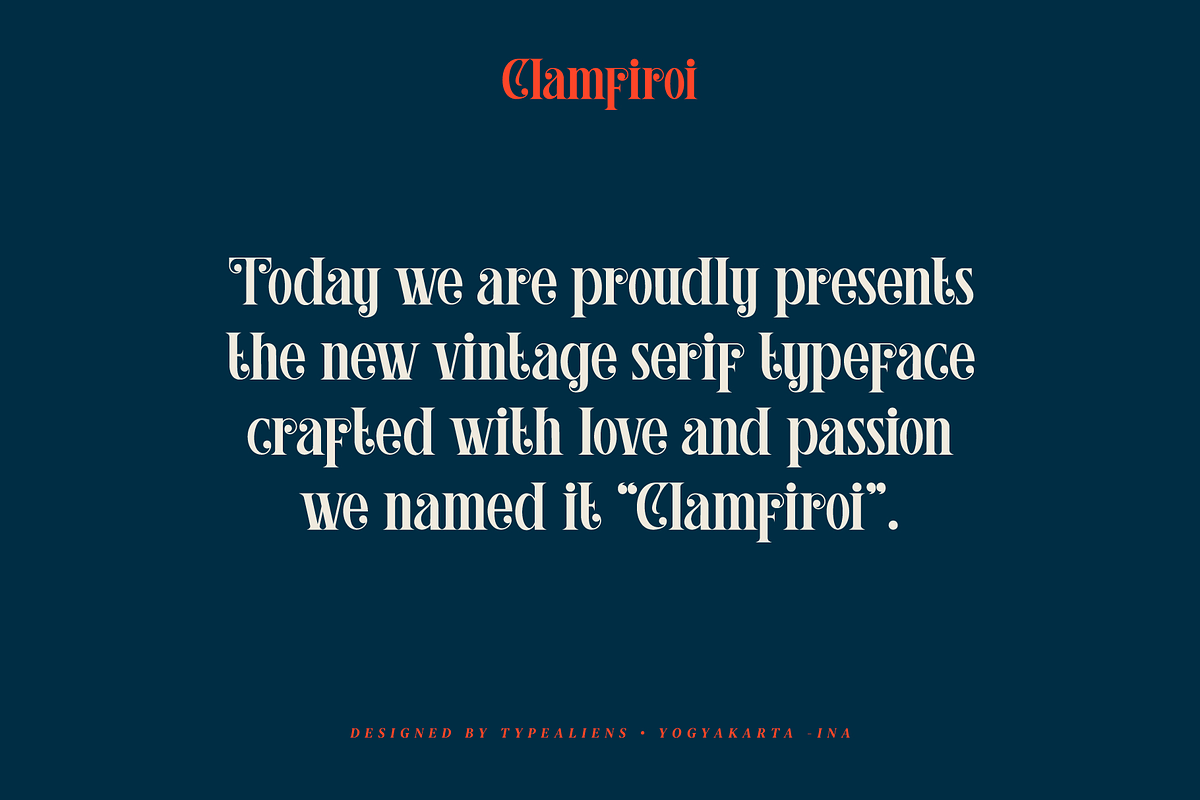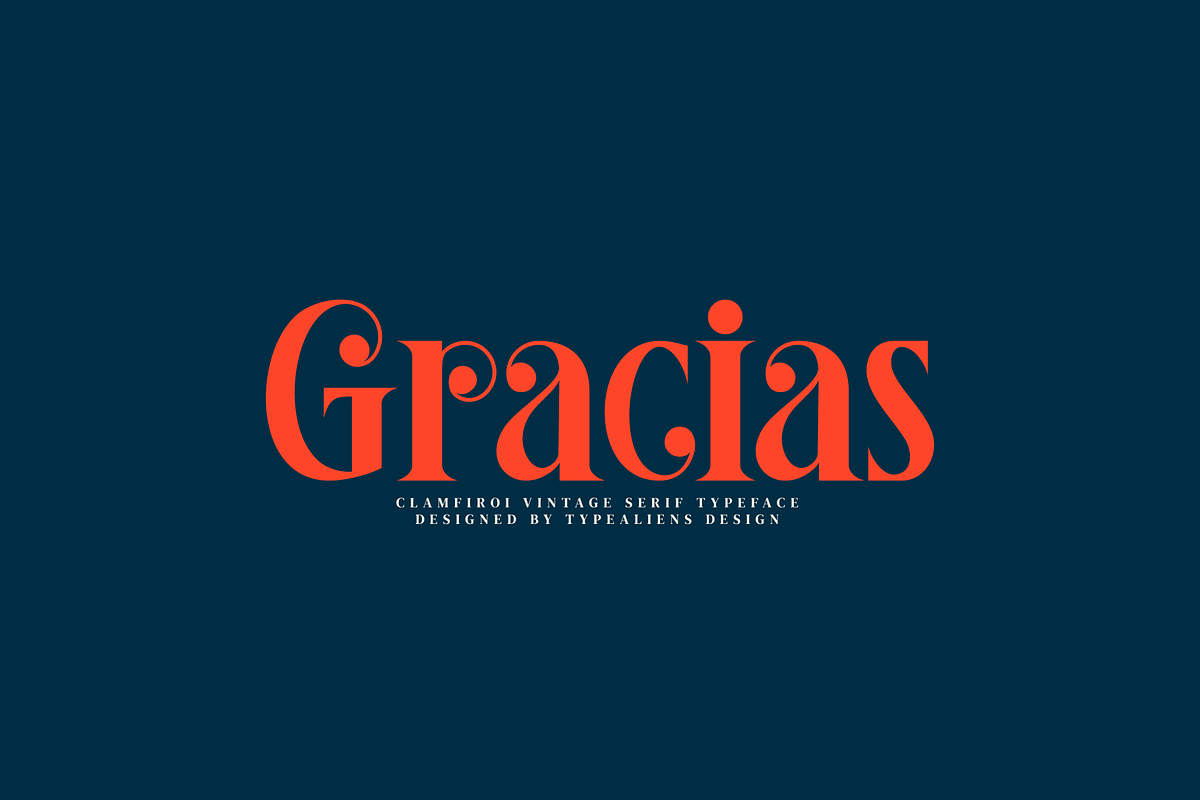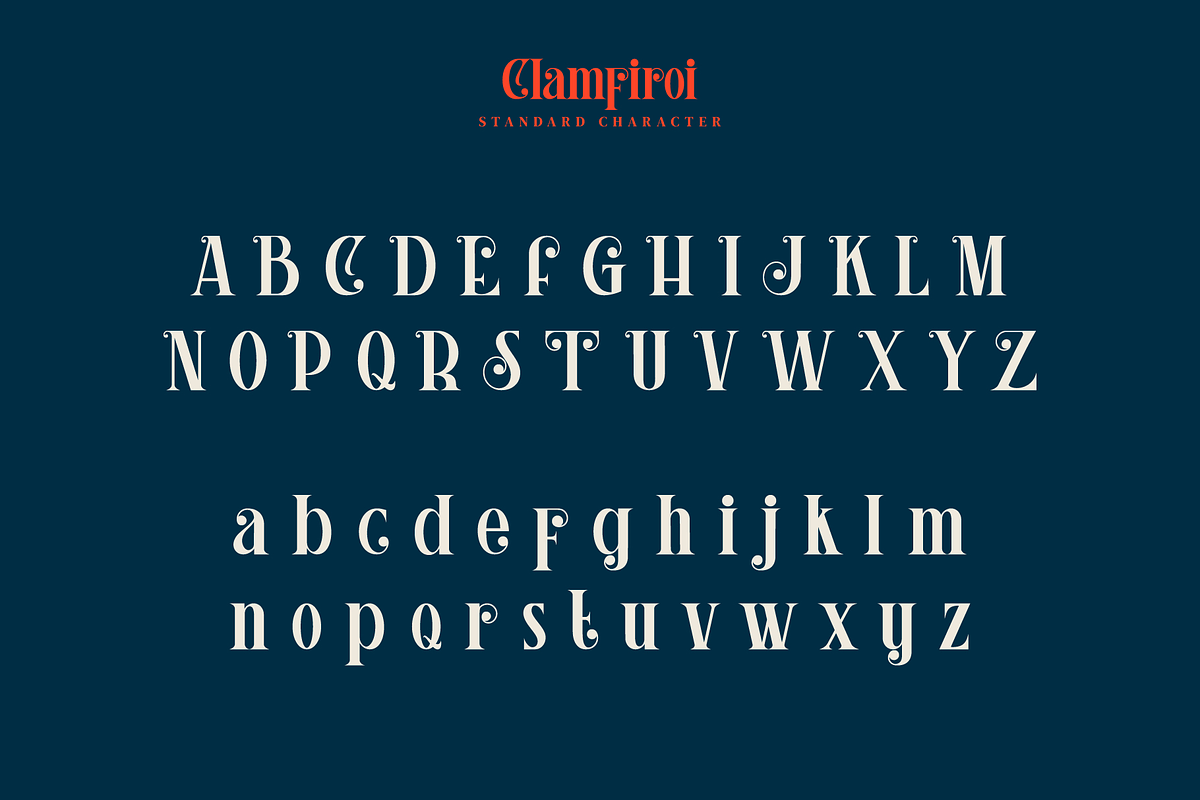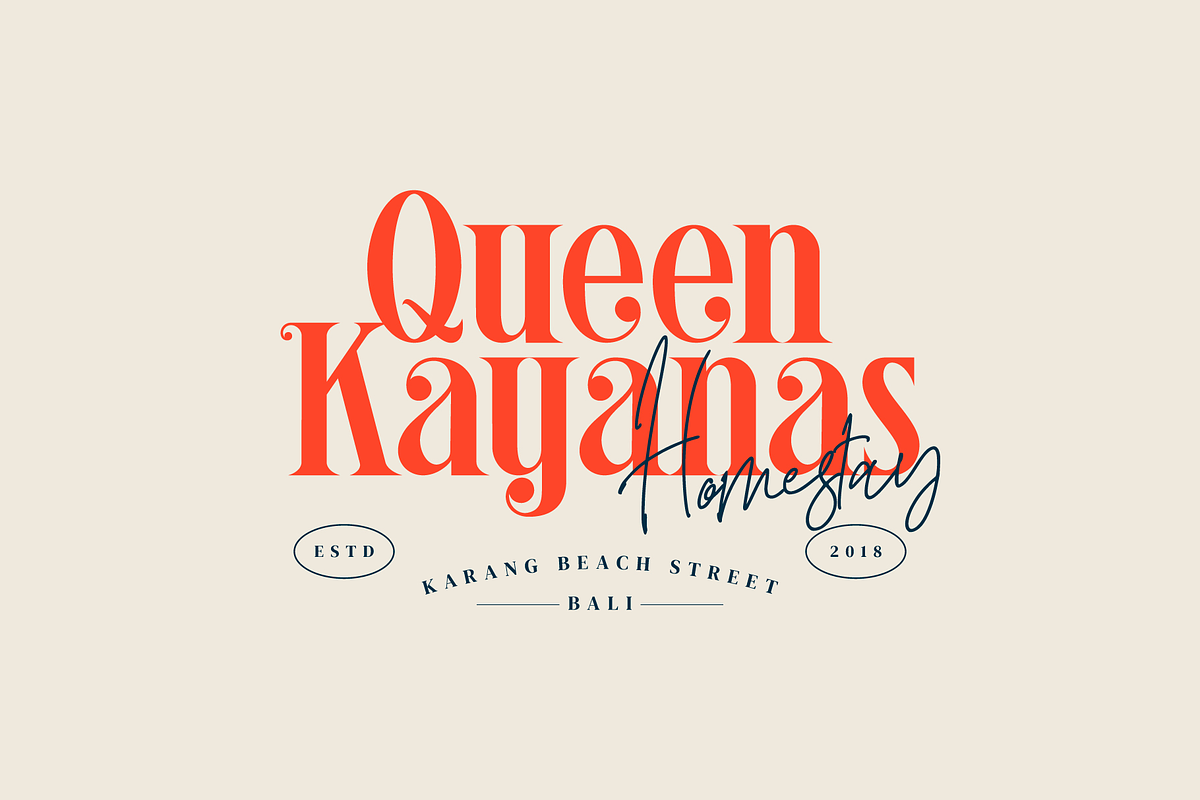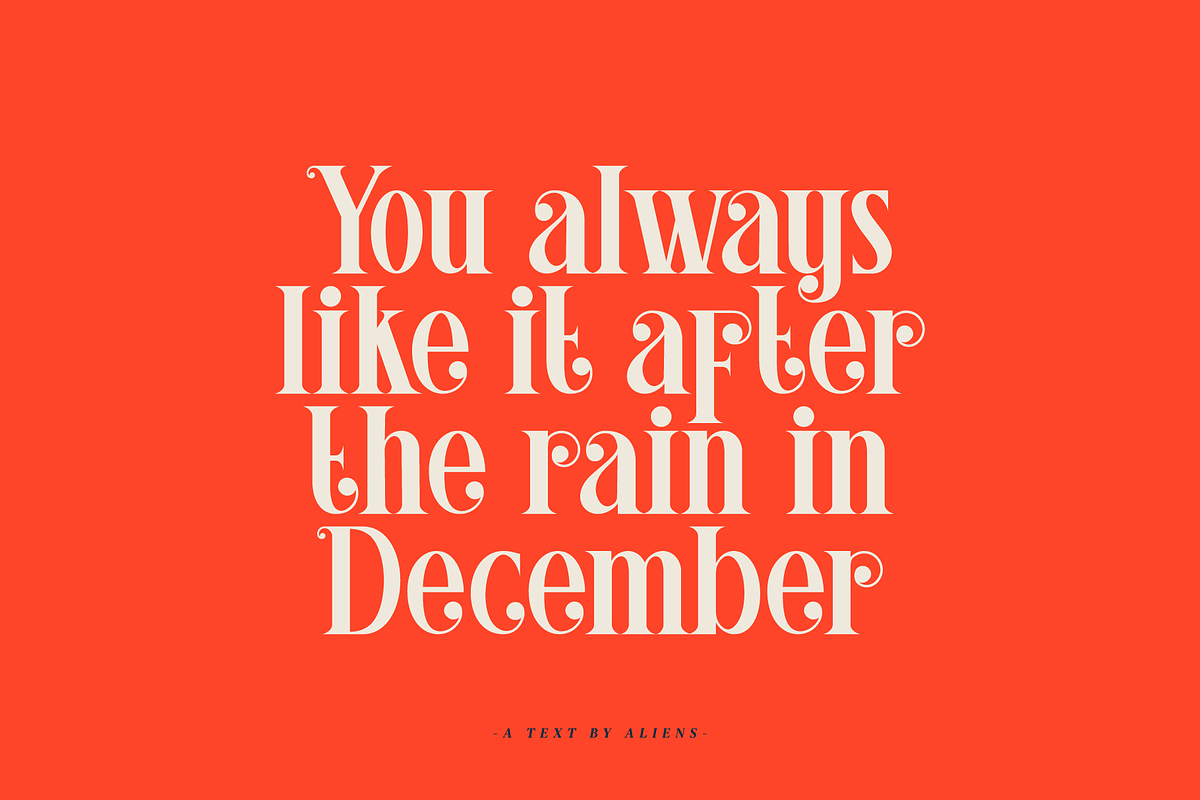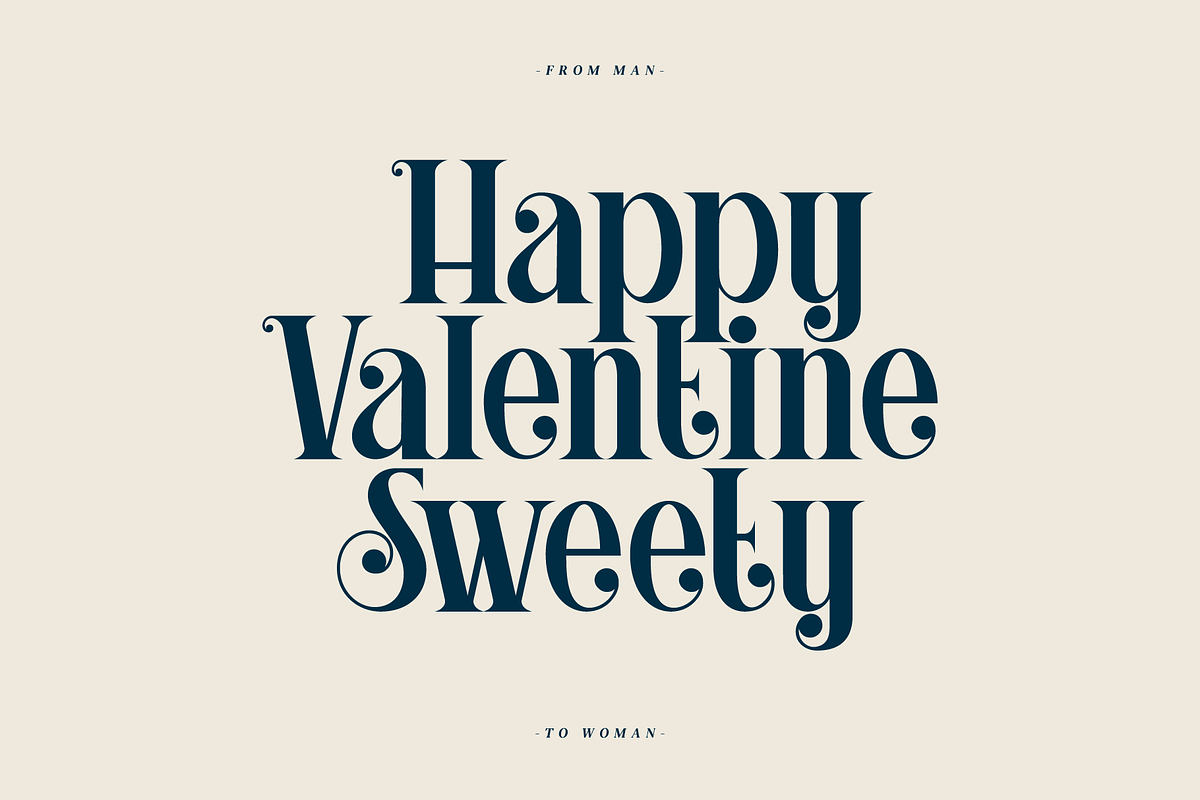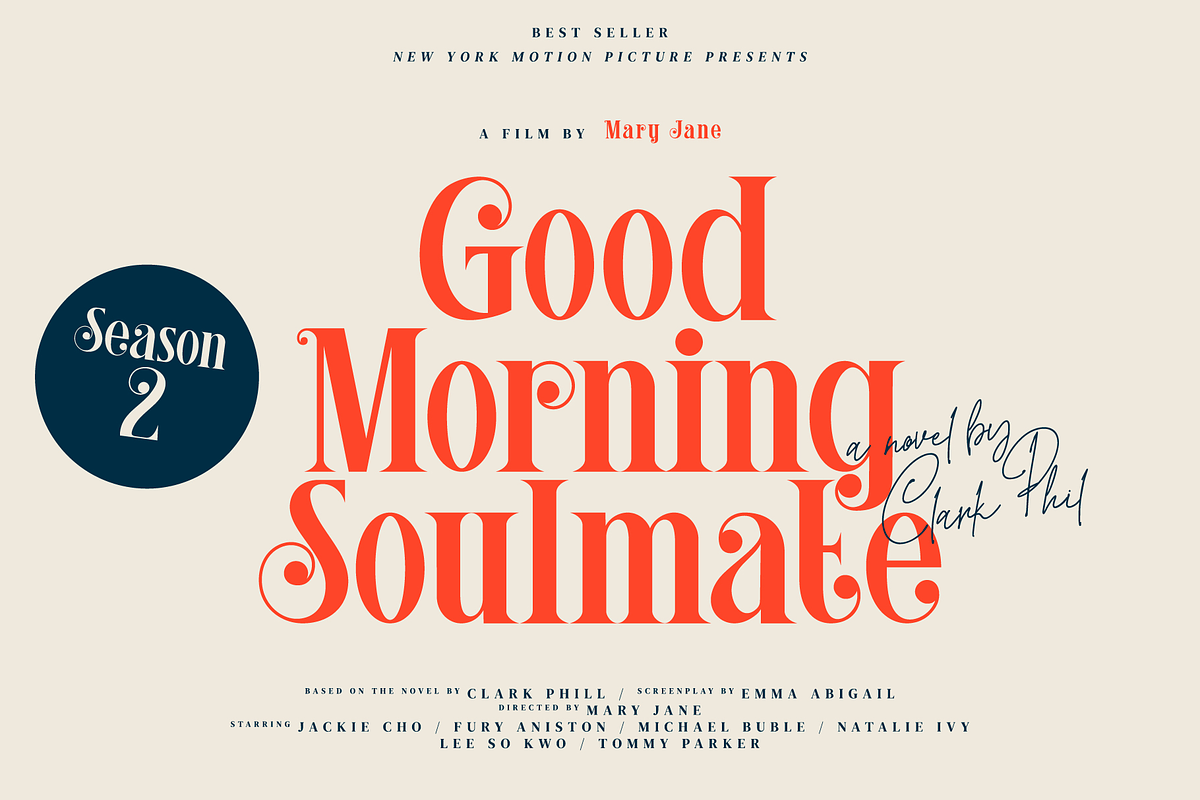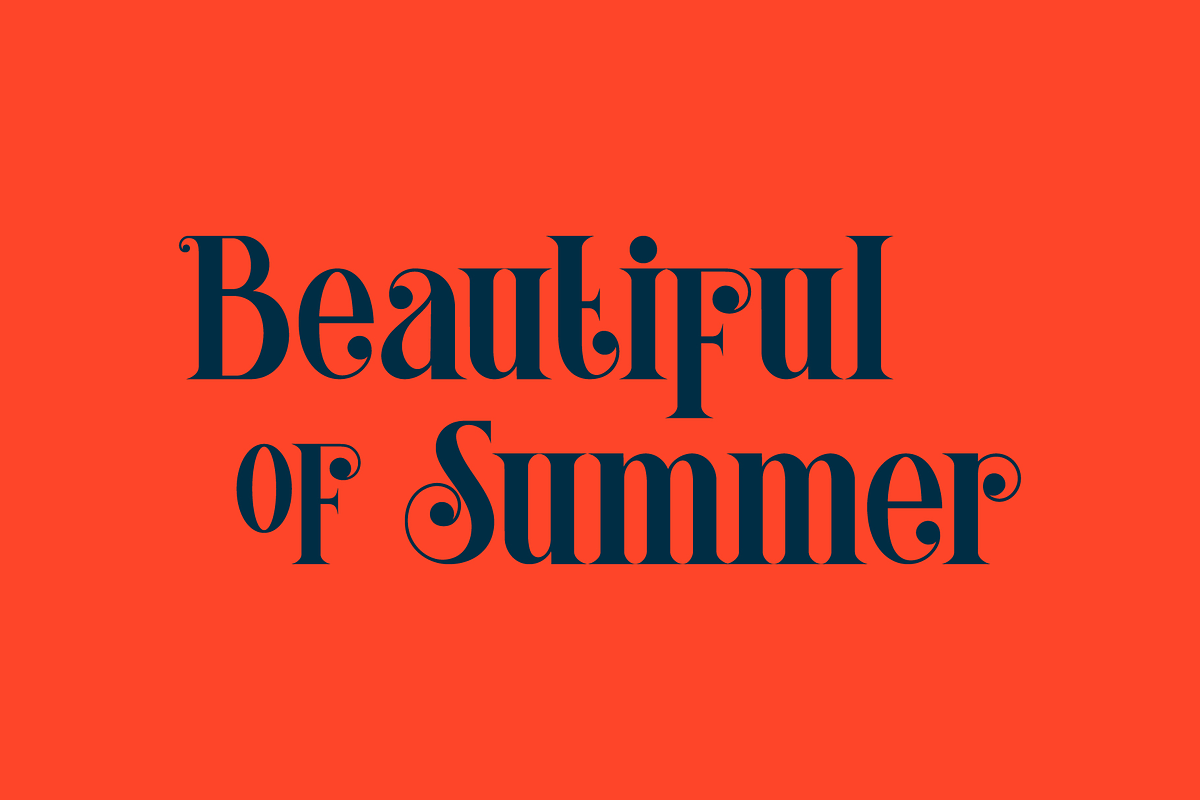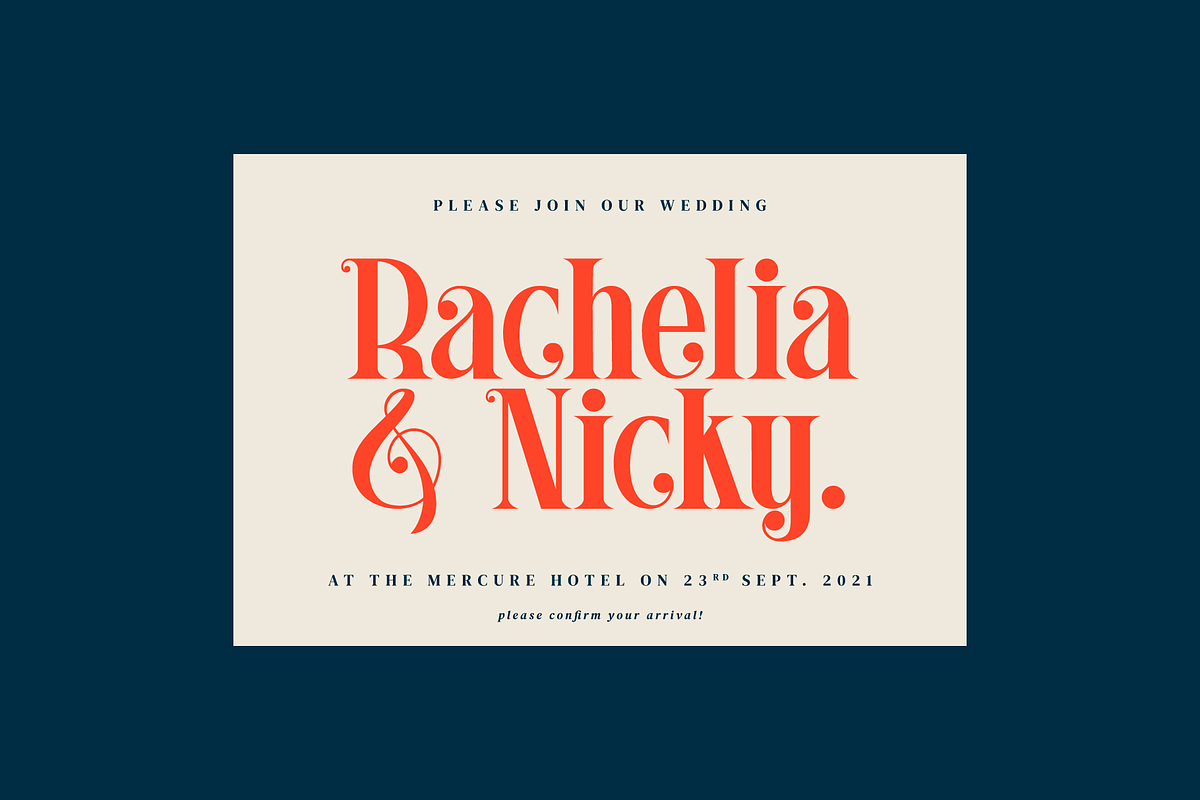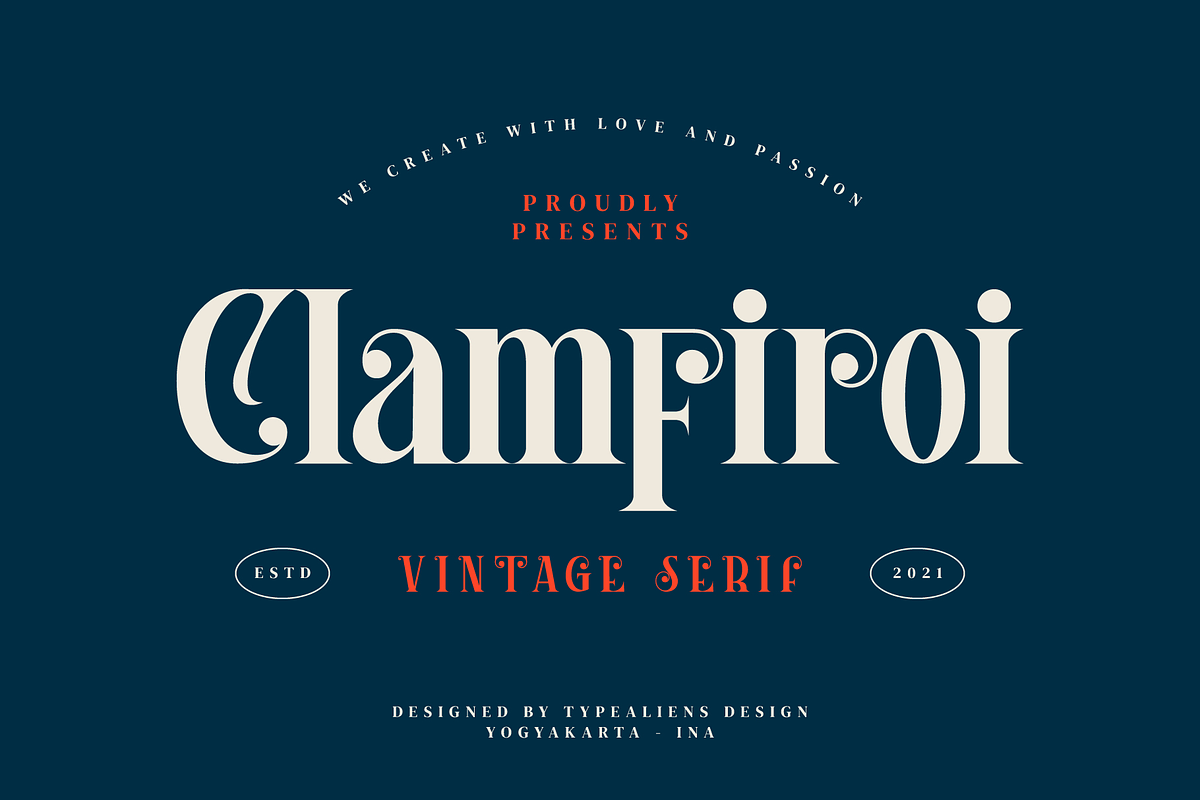
Clamfiroi
CLAMFIROI
Clamfiroi is a sans serif font that is quite unique, because some characters have a stroke shape that is quite unique. A font that is very suitable to support designs that are modern/vintage, formal designs, clean and simple designs.